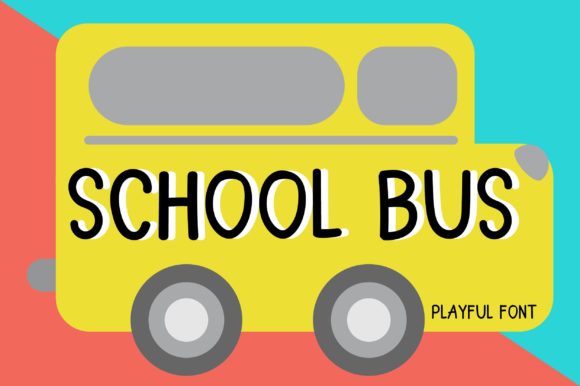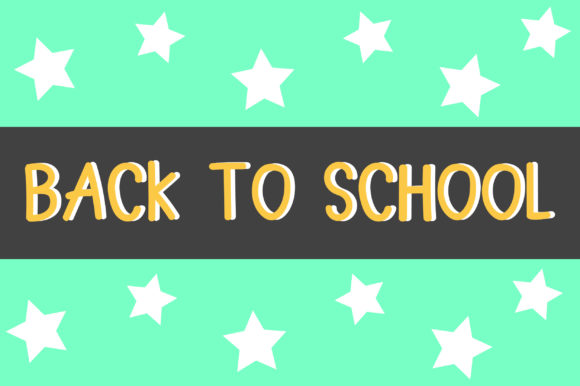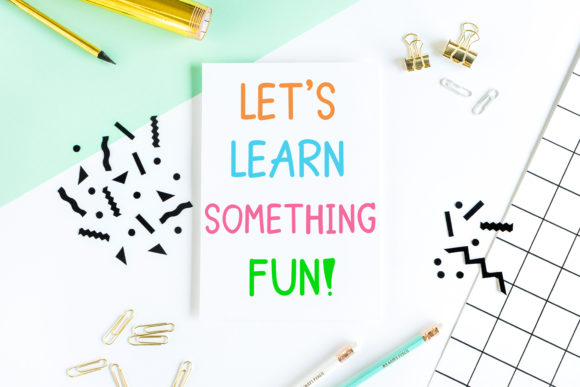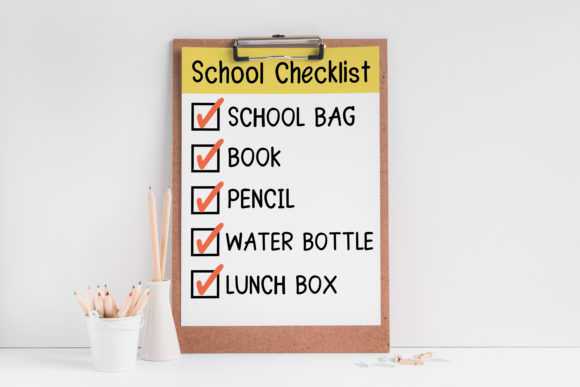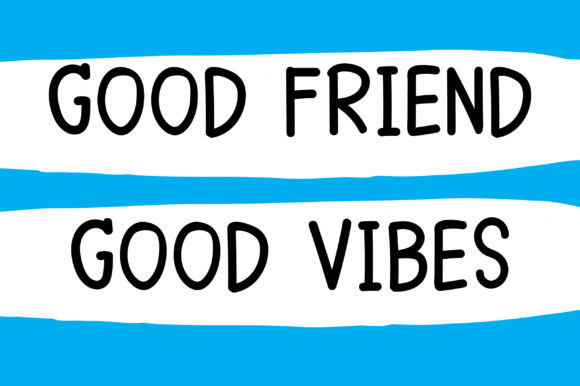
School Bus Font
About School Bus Font
School Bus is a simple and neat lettered handwritten font. It will elevate a wide range of design projects to the highest level, be it branding, headings, invitations, signatures, logos, labels, and much more!